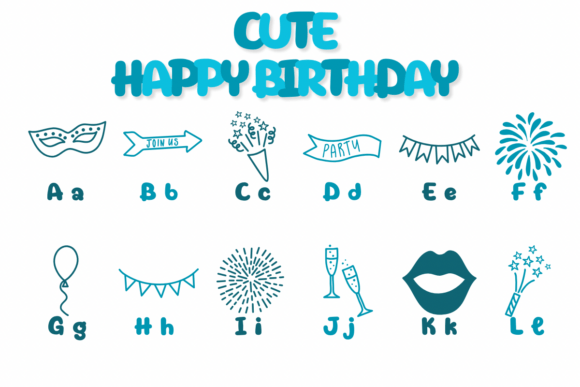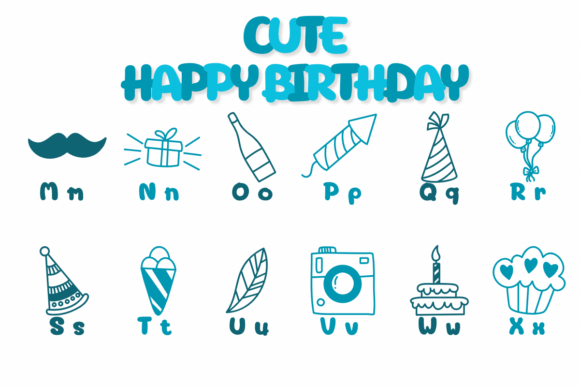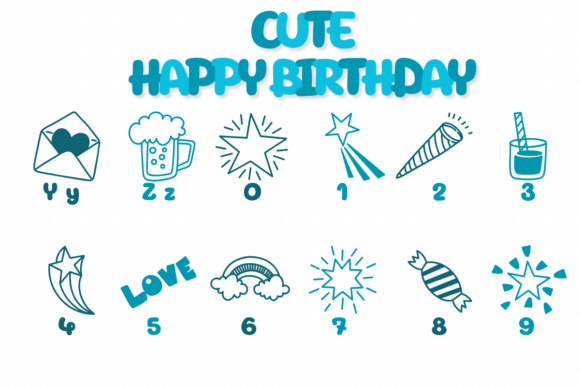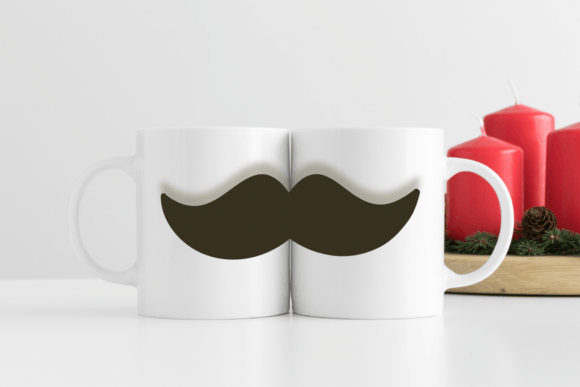
Cute Happy Birthday Font: Elevate Your Creative Projects with a Playful Touch
Are you a designer, crafter, or DIY enthusiast looking for a unique and playful font to add a personal touch to your creative projects? Look no further than the Cute Happy Birthday font, a delightful dingbats font that brings a sketch style theme to your designs. In this article, we’ll explore the features and benefits of this charming font, and how it can enhance your wedding invitations, DIY projects, crafts, decorations, logos, and many other creative ideas.
What is Cute Happy Birthday Font?
Cute Happy Birthday is a dingbats font that features a whimsical sketch style theme, perfect for adding a playful and creative touch to your designs. Dingbats fonts, also known as symbol fonts, are a type of font that consists of graphical symbols, such as icons, shapes, and illustrations, rather than traditional alphabet characters. This font is specifically designed to bring a happy and celebratory feel to your projects, making it ideal for birthday-themed designs, party invitations, and festive decorations.
Key Features of Cute Happy Birthday Font
- Sketch style theme: The Cute Happy Birthday font boasts a charming sketch style theme that adds a personal and handmade touch to your designs.
- Dingbats font: This font features a collection of graphical symbols, including icons, shapes, and illustrations, that can be used to create unique and creative designs.
- Playful and celebratory: The font’s playful and celebratory feel makes it perfect for birthday-themed designs, party invitations, and festive decorations.
- Versatile: Cute Happy Birthday font can be used for a wide range of creative projects, including wedding invitations, DIY crafts, decorations, logos, and more.
Creative Ways to Use Cute Happy Birthday Font
The Cute Happy Birthday font is an incredibly versatile font that can be used in a variety of creative projects. Here are some ideas to get you started:
- Wedding Invitations: Add a playful and romantic touch to your wedding invitations with the Cute Happy Birthday font. Use it to create custom illustrations, decorate your envelope liners, or add a special message to your wedding stationery.
- DIY Crafts: The Cute Happy Birthday font is perfect for DIY crafters who love to create handmade cards, gift tags, and decorations. Use it to add a personal touch to your crafts and make them extra special.
- Decorations: Create custom decorations, such as garlands, banners, and signs, using the Cute Happy Birthday font. This font is perfect for birthday parties, baby showers, and other celebrations.
- Logos and Branding: The Cute Happy Birthday font can also be used to create custom logos and branding materials, such as business cards, letterheads, and social media graphics.
Tips for Using Cute Happy Birthday Font
Here are some tips for using the Cute Happy Birthday font in your creative projects:
- Experiment with different sizes and colors: Play around with different font sizes and colors to create a unique and eye-catching design.
- Combine with other fonts: Combine the Cute Happy Birthday font with other fonts to create a contrasting and visually appealing design.
- Use it sparingly: Use the Cute Happy Birthday font sparingly to add a touch of whimsy and personality to your design. Overusing the font can make your design look cluttered and overwhelming.
The Cute Happy Birthday font is a delightful dingbats font that brings a playful and celebratory touch to your creative projects. With its sketch style theme and versatile design, this font is perfect for designers, crafters, and DIY enthusiasts who want to add a personal and handmade touch to their designs. Whether you’re creating wedding invitations, DIY crafts, decorations, logos, or other creative projects, the Cute Happy Birthday font is sure to inspire your creativity and bring a smile to your face.